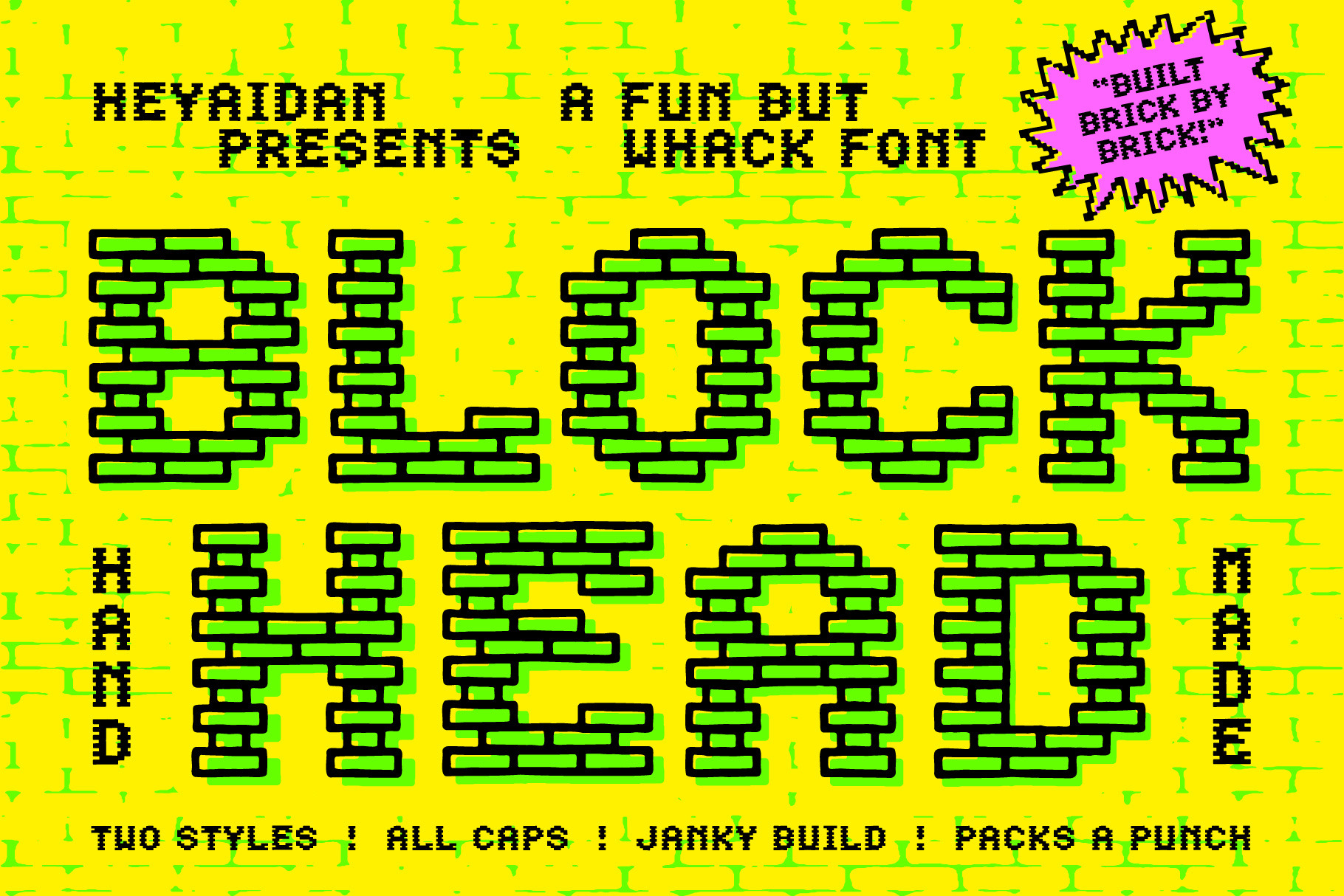
Block Head | Pixel Brick Fun Font
Save your game before exiting with the Block Head Font!
Need something that's a little retro but can also dominate the digital universe? Then this font is perfect for your next digital themed design. No need to grind for this reward, Block Head is available and ready to be your companion for all your design quests.
Block Head is an All Caps display font featuring two styles to work with; Solid and Brick. Solid is a filled font with some rough, bit-like edges, while Brick a stroked version that features individual parts that make up the letters.